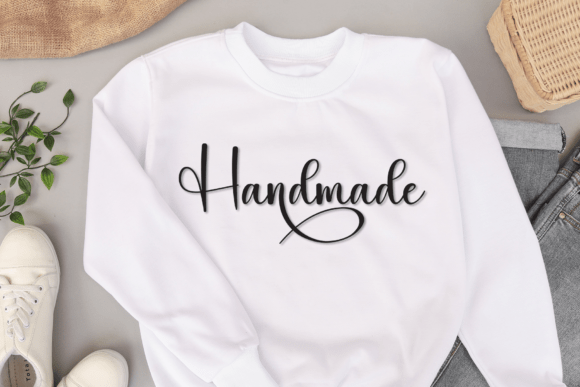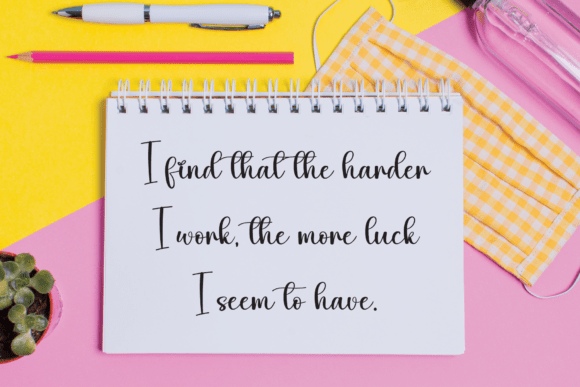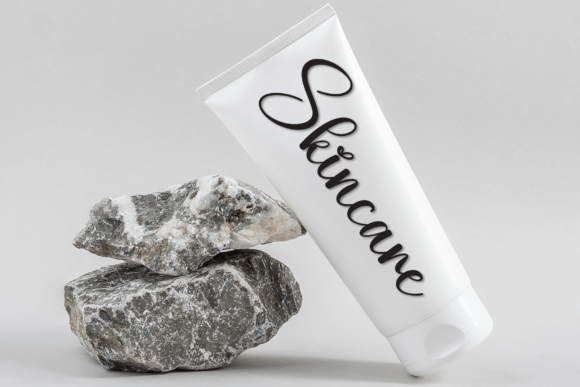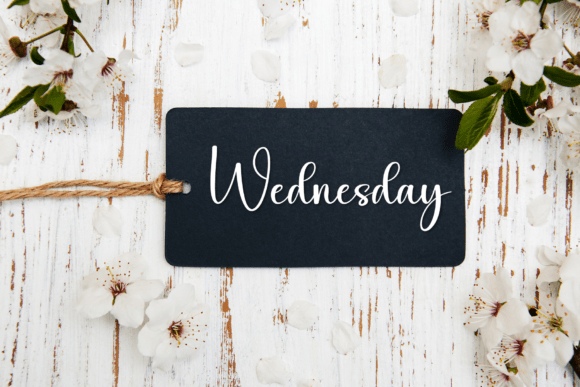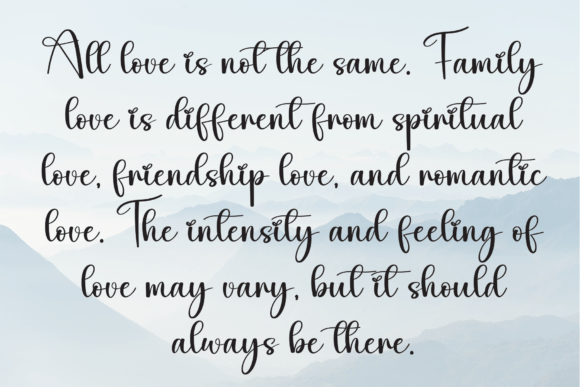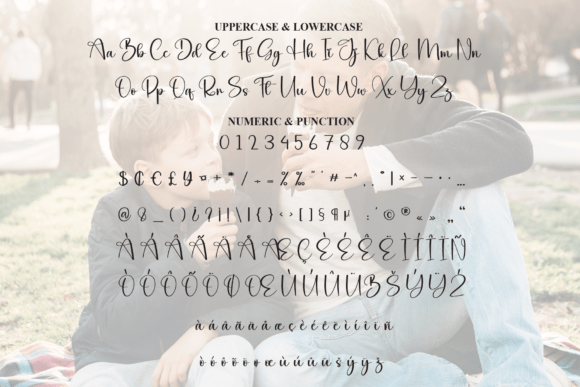
The Perfect Font for the Perfect Message
As a designer, there’s nothing quite like the thrill of finding the perfect font to bring your vision to life. It’s that moment when you stumble upon a font that perfectly captures the essence of your project, and you know you’ve hit the jackpot. For me, that moment came when I discovered Fathers Font – a stunning, handwritten script font that adds a touch of elegance and playfulness to any design.
Fathers Font is more than just a font; it’s a way to convey warmth, sophistication, and creativity in every project. Whether you’re designing invitations, branding, or social media graphics, this font is sure to elevate your work and leave a lasting impression. As a designer, you’ll appreciate the versatility and charm of Fathers Font, making it a valuable addition to your font library.
Fathers Font Key Features
- Font Family: A sans-serif font designed to resemble handwriting, giving it a unique and personal touch.
- Unique Characteristics: Features a subtle, cursive feel with a mix of rounded and sharp edges, giving it a friendly and approachable appearance.
Fathers Font Review
Fathers Font is a unique, hand-drawn font that can add a personal touch to any design. It’s perfect for creating a warm and inviting atmosphere in branding, advertising, or even digital products. ✨ The font’s imperfections and subtle irregularities give it a human touch, making it stand out from more traditional, clean fonts.
Here are some of the things that work well with Fathers Font:
- Unique character: It’s a great choice for designers who want to create a memorable brand identity.
- High legibility: Despite its imperfections, the font is still easy to read, making it suitable for body text.
- Flexibility: It can be used for a wide range of design projects, from logos to posters.
- ⚠️ Limited font sizes: The font may not be as readable at smaller sizes, which can limit its use in certain design projects.
- ⚠️ Limited customization: While the font has a unique character, it may not be as customizable as other fonts, which can limit its use in certain design projects.
Overall, I think Fathers Font is a great choice for designers who want to add a personal touch to their work. While it has some limitations, its unique character and high legibility make it a great addition to any design project.
Fathers Font is a versatile font that can be used for various design projects, including:
- Cards and invitations for special occasions (e.g. Father’s Day, birthdays)
- Logos and branding for businesses or organizations
- Signs and posters for events or promotions
To get the most out of Fathers Font, experiment with different font sizes, colors, and alignments to create unique and eye-catching designs.